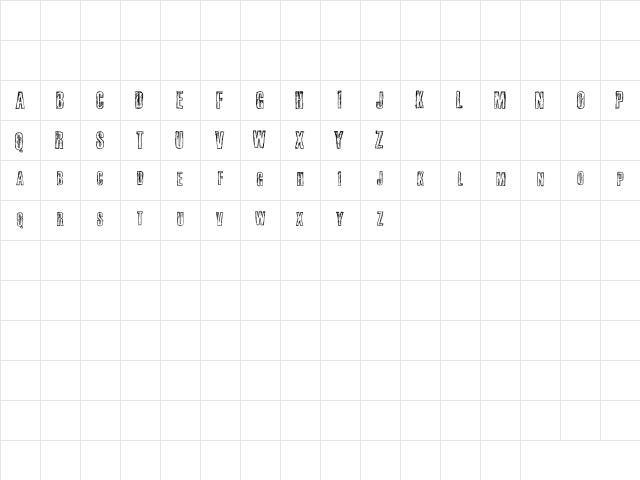
fail Regular
Design Context for fail Typeface
fail is a composed and adaptable typeface that performs quietly and consistently across a wide range of design contexts.